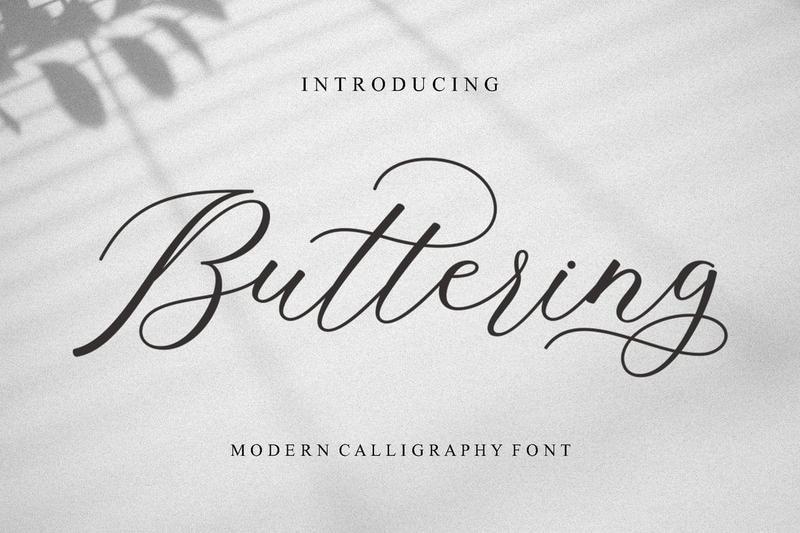
Buttering Script EQLUK9F
Buttering Script is a sophisticated and timeless script font. With stylish alternates and unique ligatures integrated into its OpenType features, this font offers incredible flexibility and creative freedom for any design.